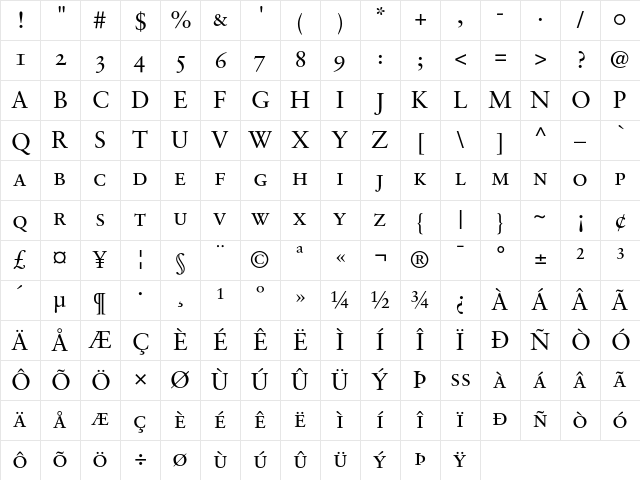
Sabon Roman Small Caps & Oldstyle Figures
Style: Roman Small Caps & Oldstyle Figures
Complete Sabon Roman Small Caps & Oldstyle Figures glyph index. Displaying only characters natively supported by Sabon Roman Small Caps & Oldstyle Figures font.
Design Context for Sabon
Sabon carries the refined structure of traditional serif typography, with bracketed terminals and considered proportions that communicate credibility and craft.
Pro Tip: Use Sabon for editorial body copy and considered headline work. Pair with a neutral sans for UI elements or captions to create a classic hierarchy.